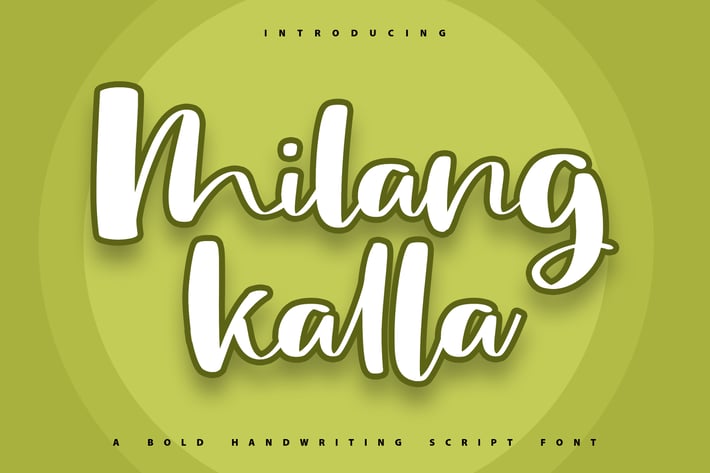
Milangkala | Bold Handwriting Script Font
Milangkala | Bold Handwriting Script Font with a calligraphy style, So beautiful on invitation like greeting cards, branding materials, business cards, quotes, posters, and more!